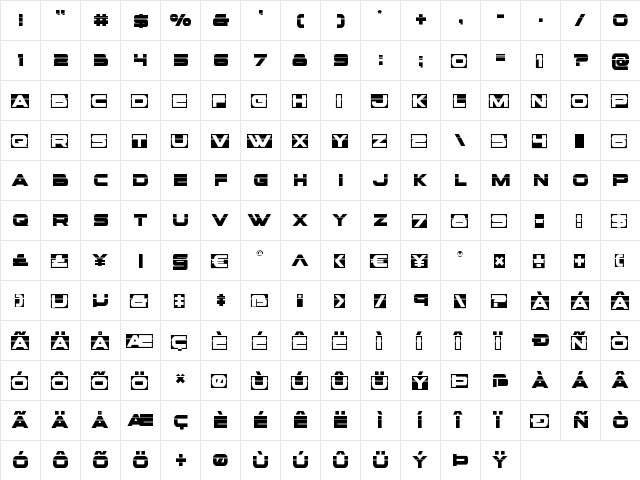
voxBOX Laser Regular
Design Context for voxBOX Laser Typeface
voxBOX Laser is a composed and adaptable typeface that performs quietly and consistently across a wide range of design contexts.
Pro Tip: Use voxBOX Laser in both headline and body roles to test its range before committing to a single application.